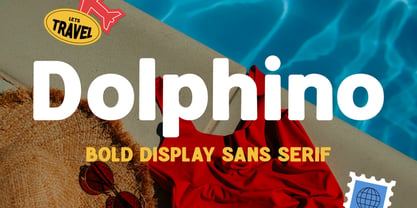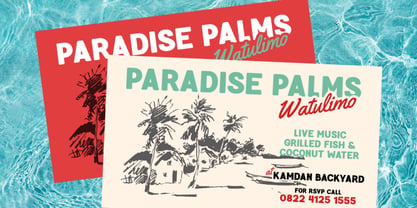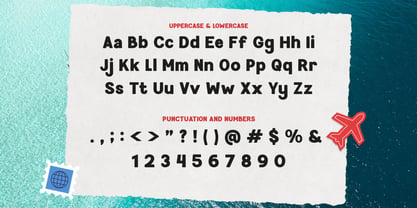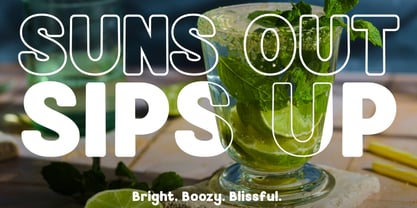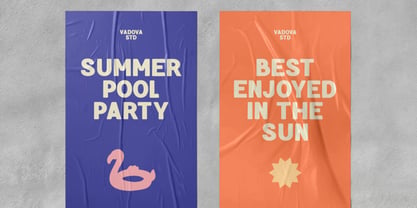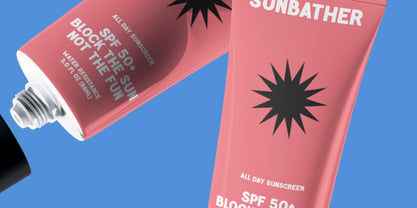
Dolphino
Dolphino is a bold, rounded sans serif display font inspired by sun-soaked travel, poolside vibes, and playful summer adventures. With smooth curves and soft terminals, Dolphino brings a friendly yet confident voice to your design. It includes uppercase, lowercase, numbers, and punctuation perfect for eye-catching headlines, travel posters, kids branding, product packaging, and social media graphics. Dolphino is perfect for bright, upbeat design projects like summer campaigns, travel branding, kids merchandise, packaging for food and drinks, and eye-catching social content. Its bold weight and approachable shape make it highly readable while adding a dose of fun and energy to your visual identity.